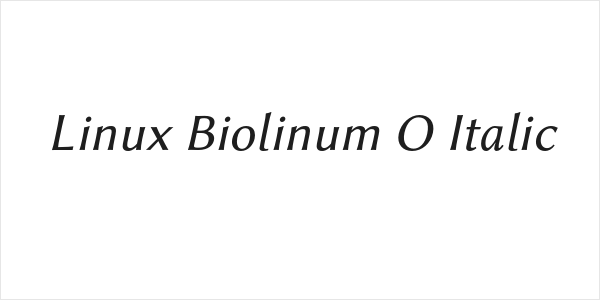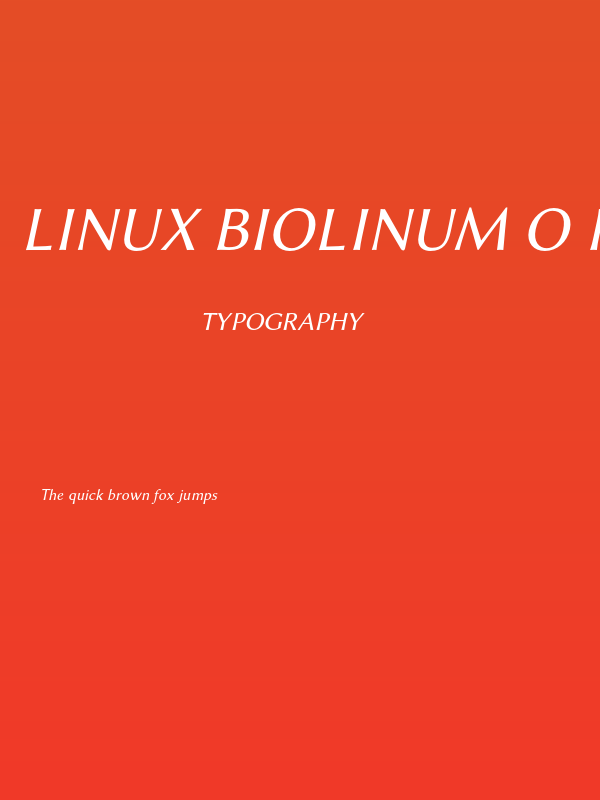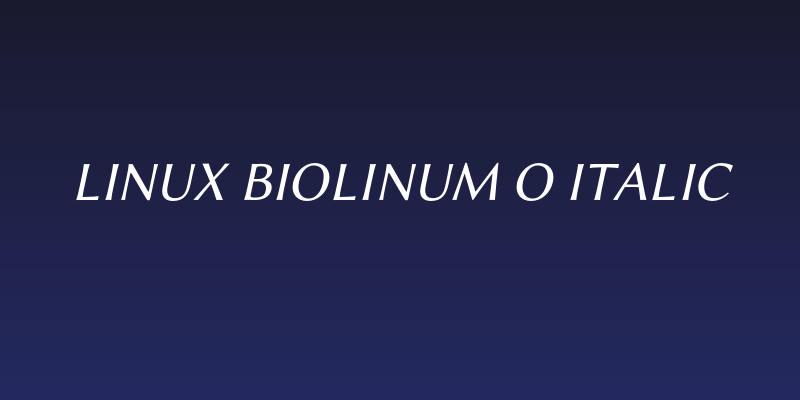
Linux Biolinum O Italic Font
Linux Biolinum O Italic Description
This font features a clean and elegant design with a slight italic slant, offering a sophisticated and professional appearance. The characters are well-proportioned, with smooth curves and a moderate stroke contrast that enhances readability. The uppercase letters are slightly taller than the lowercase, providing a balanced look. The numerals are clear and distinct, ensuring easy recognition. Special characters are thoughtfully designed to complement the overall style, making this font versatile for various applications.
| Proposed Projects | Suitable for projects such as formal invitations, corporate branding, editorial design, and elegant website headers. |